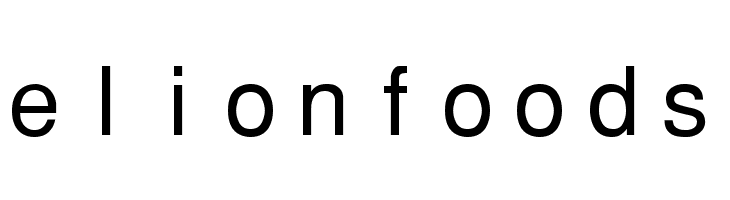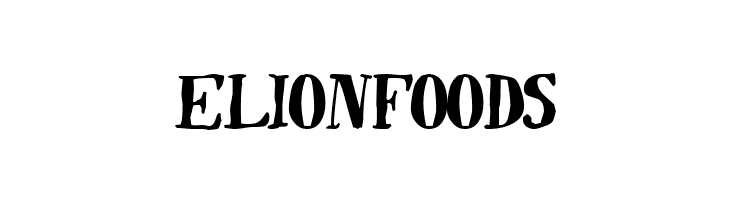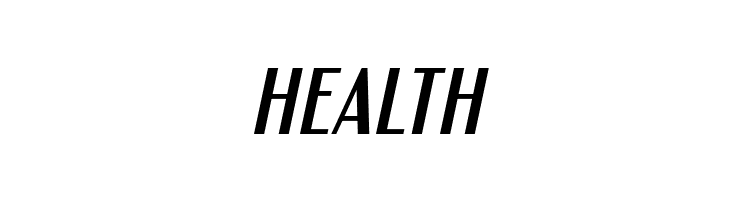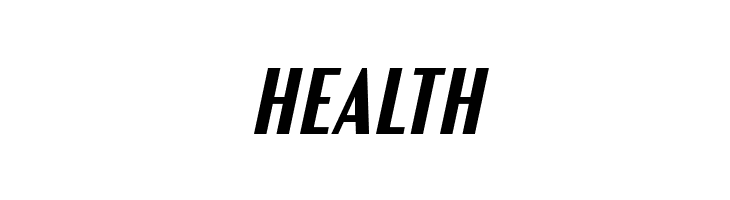
A bold, circular font with a playful and modern design.
A futuristic, geometric font with bold, angular letterforms.
A futuristic, oblique font with bold, geometric characters.
A bold, slab serif font with a strong, modern presence.
A bold, distressed font with a rugged, vintage appearance.
A bold, angular font with sharp, geometric shapes and dynamic energy.